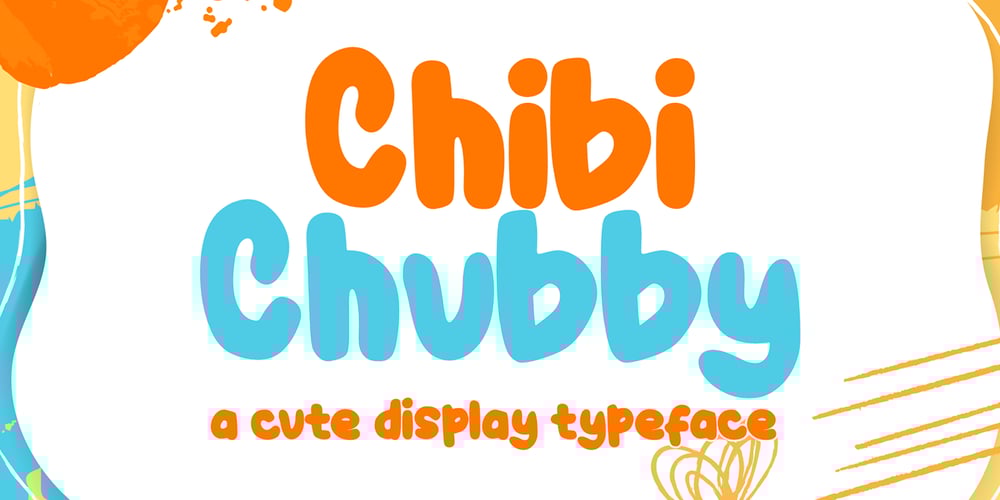
Chibi Chubby Font Family was designed by Sipanji and published by Sipanji21. Chibi Chubby contains 1 styles and family package options. “Chibi Chubby” is a thick and realistic display font that mimics handwritten characters often associated with kids’ styles. Fonts like this generally feature chubby, rounded, and playful letterforms, resembling the handwriting of a child. The thick strokes and rounded shapes contribute to its friendly and approachable appearance.This font could be an excellent choice for various projects targeting children, such as book covers, posters, invitations, or any design requiring a playful and charming typographic style. Its resemblance to children’s handwriting adds a personalized and relatable touch to the text, making it appealing for kids-themed designs.